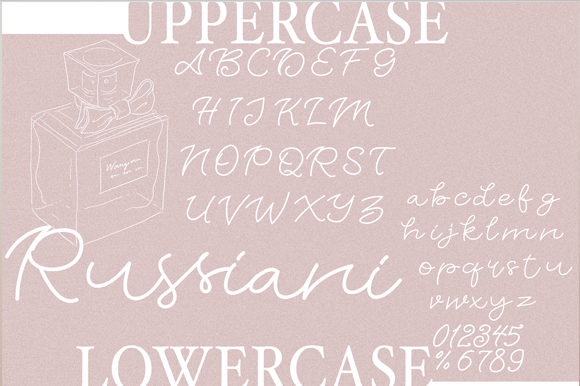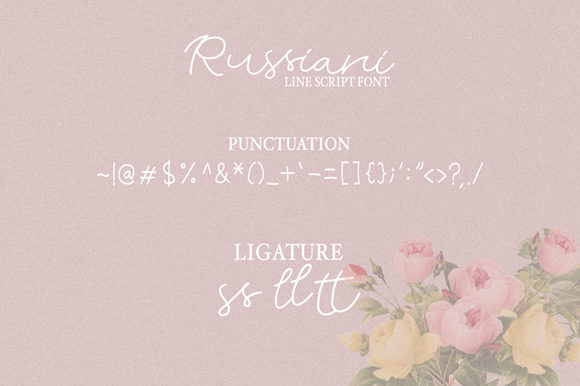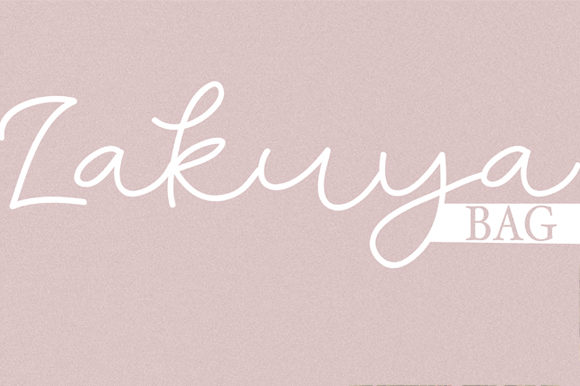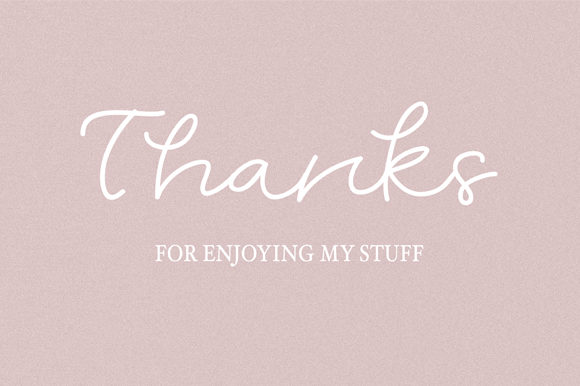
Russiani Font
About Russiani Font
The Russiani is a strong, yet elegant handwritten typeface. It’s the perfect companion to create strong and wild feelings for your creative projects. Just play with the uppercase and lowercase letters to make the perfect words!